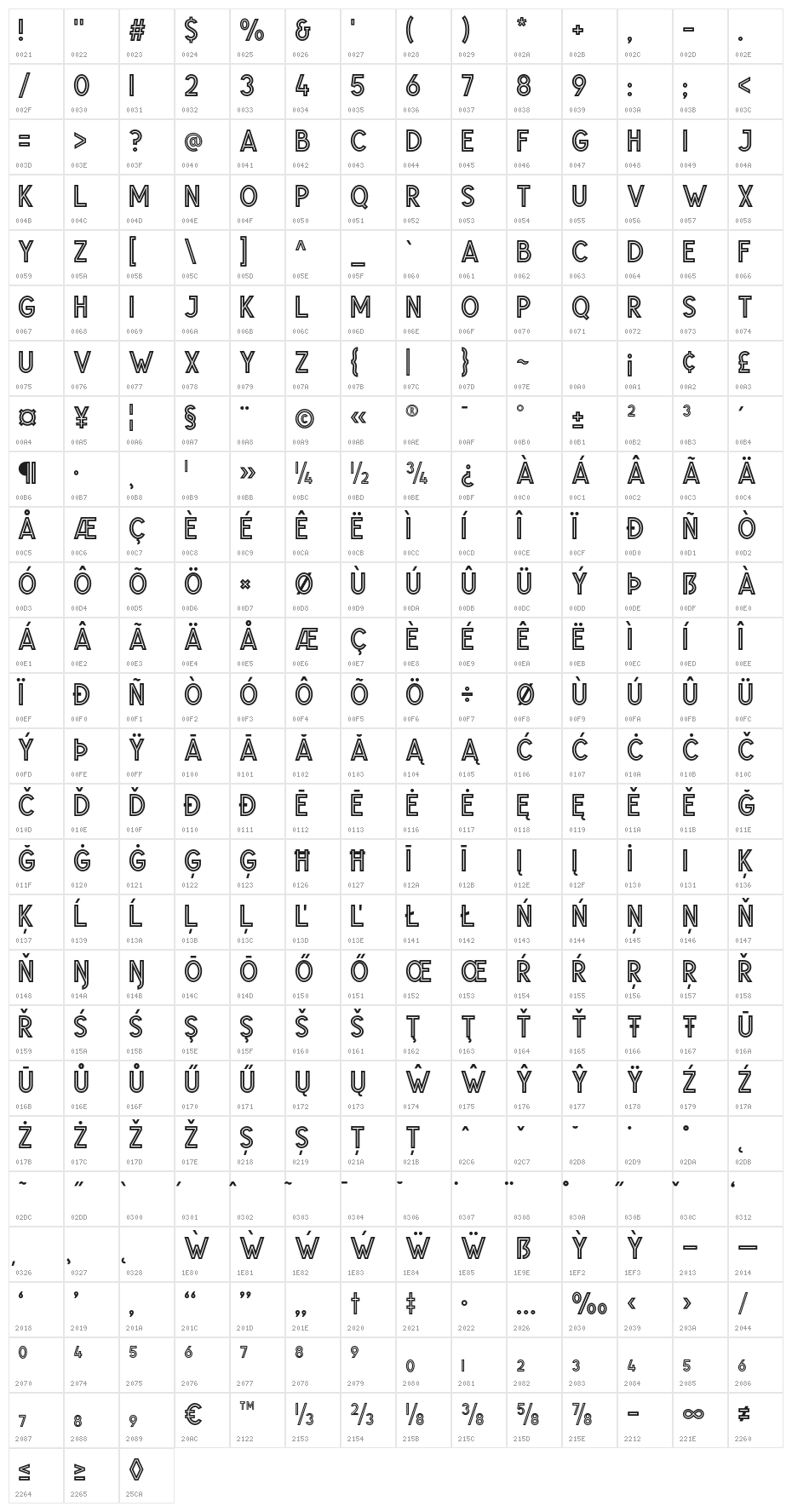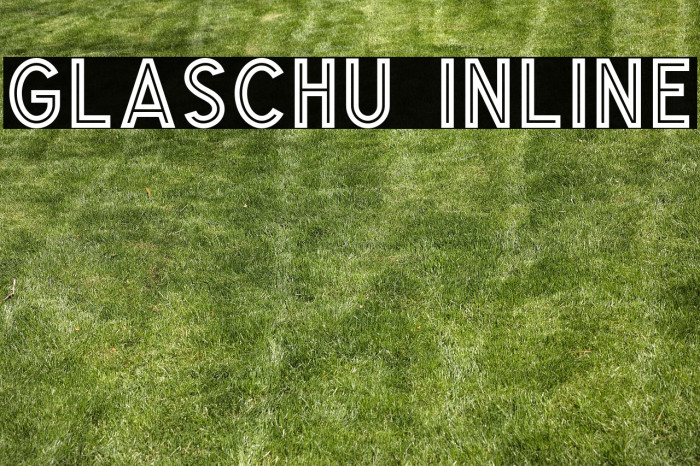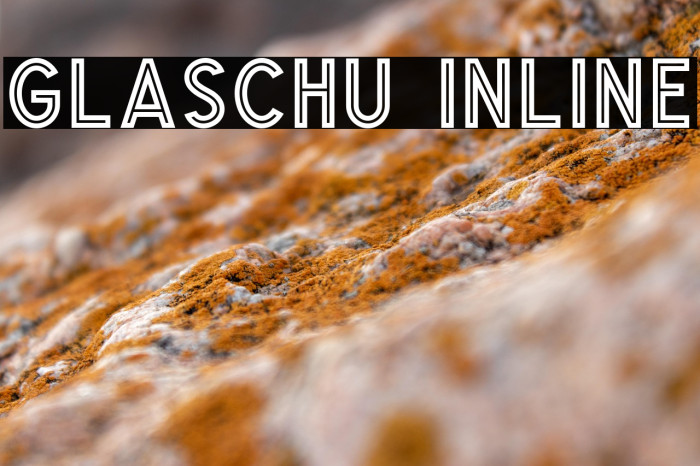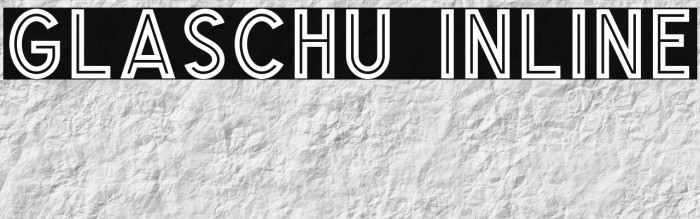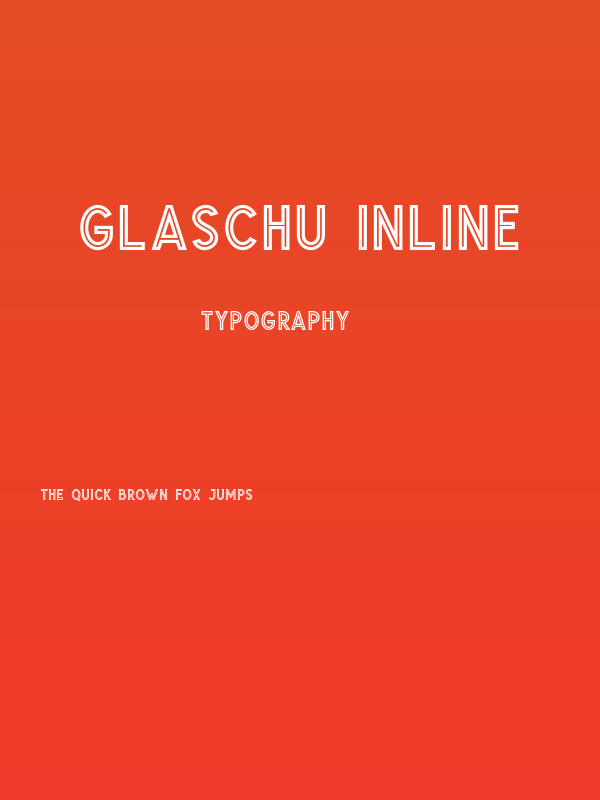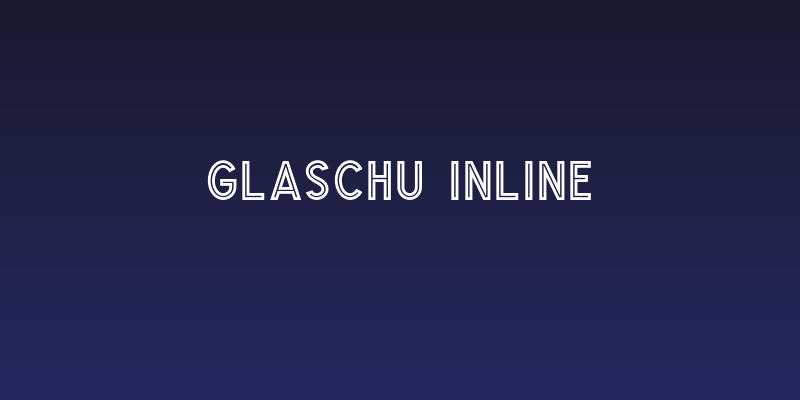
Glaschu Inline Font
Glaschu Inline Description
This font features a bold, geometric sans-serif style with a distinctive inline design. Each character is outlined, creating a hollow effect that adds a layer of depth and dimension. The uppercase and lowercase letters maintain a consistent width, contributing to a uniform appearance. The numbers and special characters follow the same design principles, ensuring a cohesive look across all glyphs. The font's clean lines and modern aesthetic make it versatile for various design applications. Its structured form and clear readability make it suitable for both digital and print media.
| Proposed Projects | Ideal for branding, posters, headlines, and modern web design projects. |